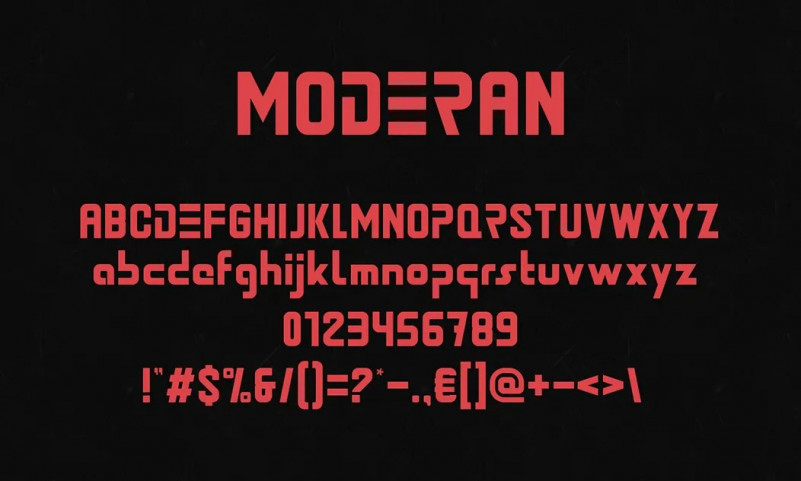
Moderan Font
Moderan Sans Serif Font is a unique and very elegant font for brand and logo design. Made from font designer named Zoki Design. It’s a modern sans serif typography that is Minimalist, Elegant and Beautiful.
Ordinary yet non-ordinary: sharp angles make good friendship with oval curves, all born from the same source which is the Golden Ratio’s proportion. Slightly influenced by Century Gothic and Helvetica in some of its traits.